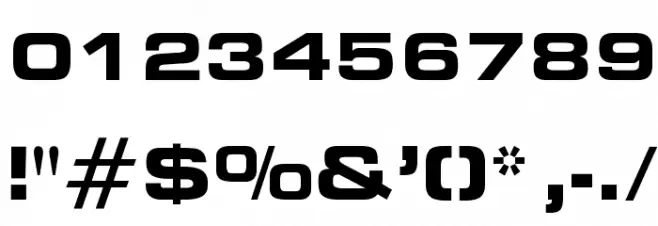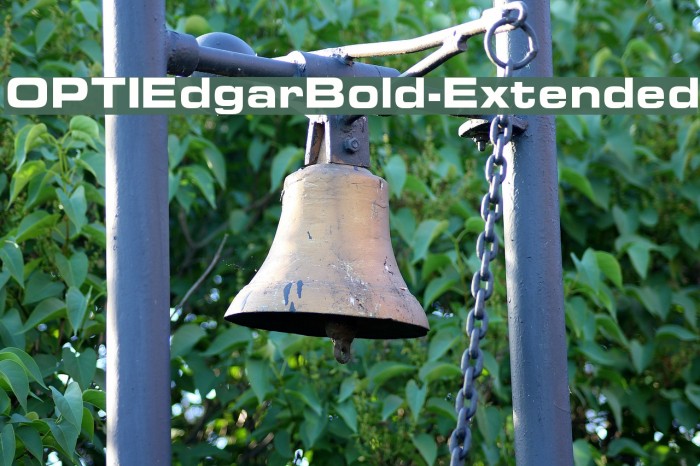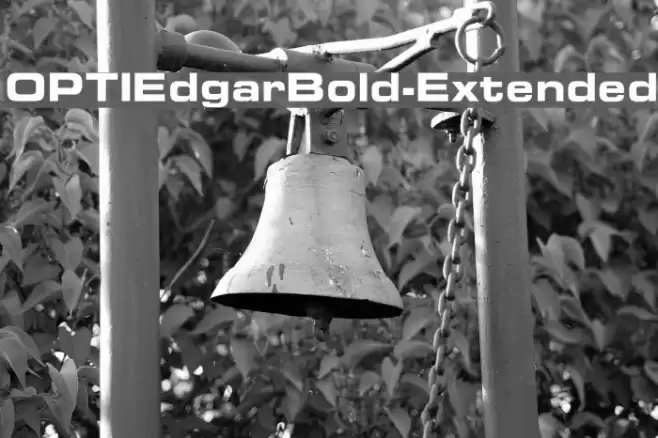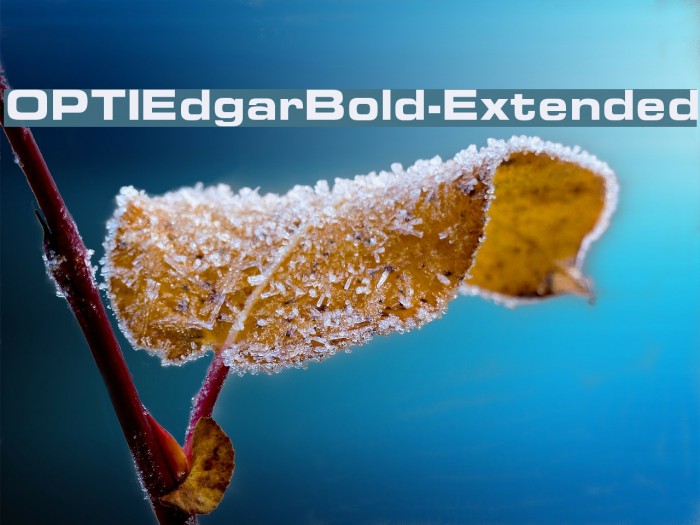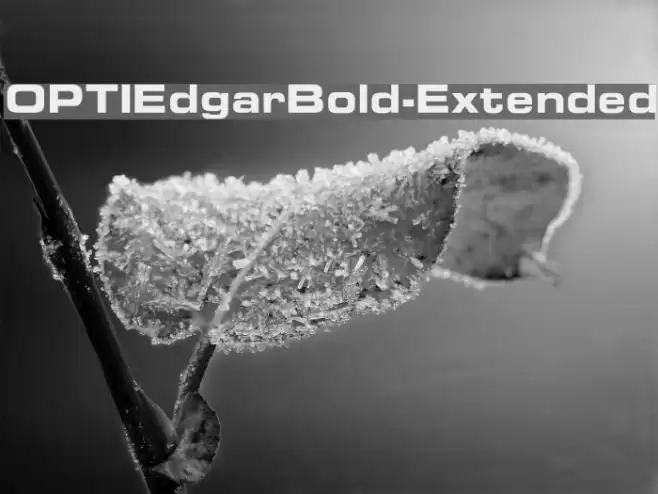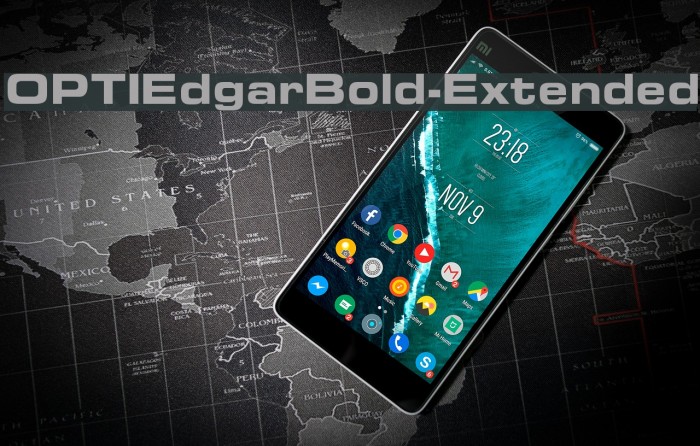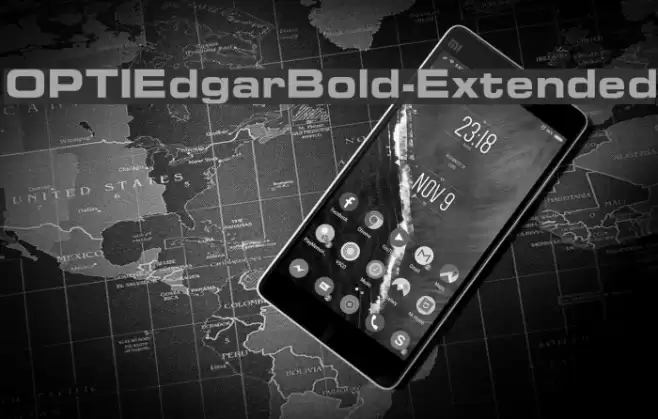
OPTIEdgarBold-Extended Font
OPTIEdgarBold-Extended Description
This font features a bold and extended style with a modern and sleek appearance. The characters are uniformly thick, providing a strong visual impact. The uppercase letters are particularly striking with their wide stance and clean lines, while the lowercase letters maintain a consistent weight and structure. The numerals are clear and easy to read, making them suitable for various applications. Special characters are well-defined, adding versatility to the font. Overall, this font exudes a contemporary and professional feel, ideal for making bold statements.
| Width | Expanded |
| Use Case | Headlines, Logos, Branding |
| Proposed Projects | Ideal for branding, headlines, posters, and digital media where a strong, modern presence is desired. |